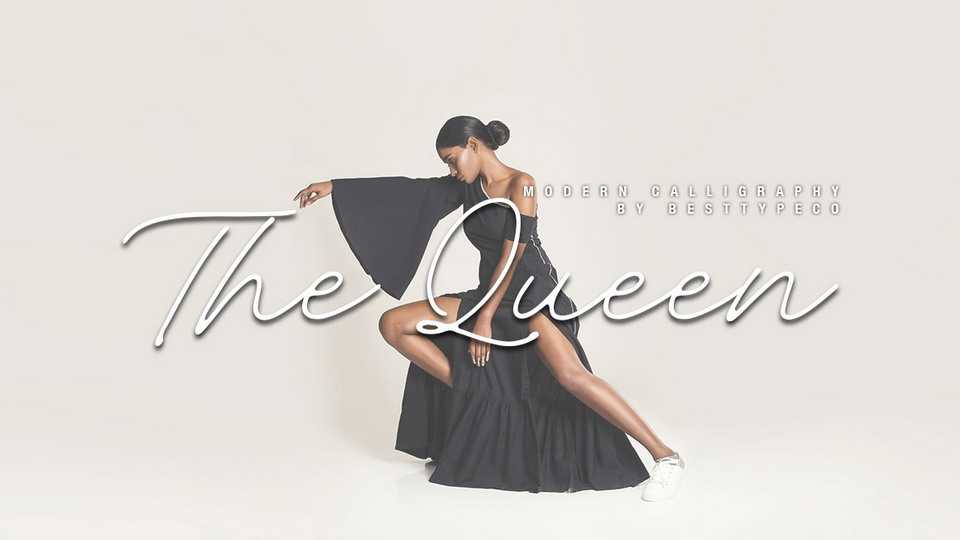
The Queen Font › Fontesk – Download Grátis
Download The Queen font an elegant handmade calligraphy script with a light and natural flow. Its signature style great for branding materials, business cards, quotes, posters, and more!
Designer: Besttypeco